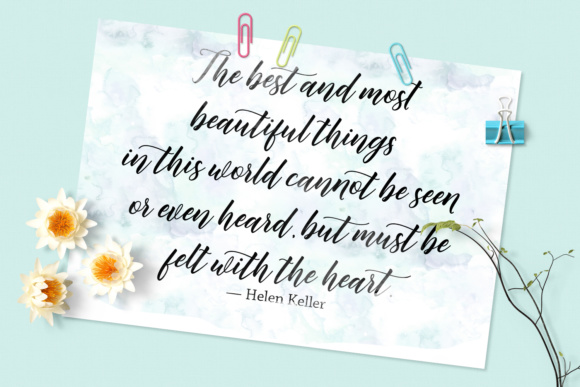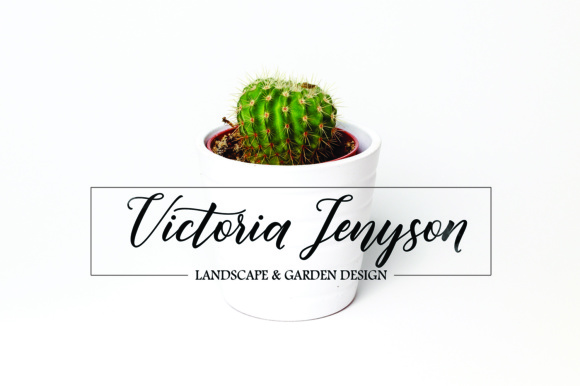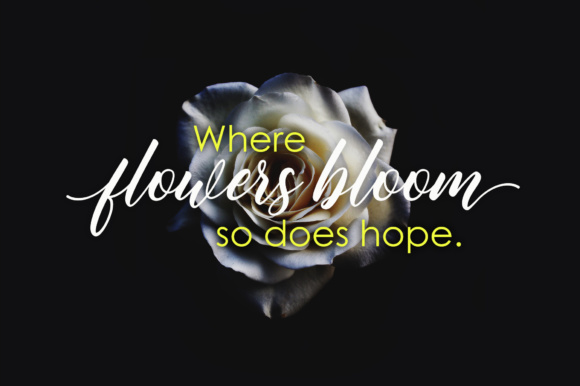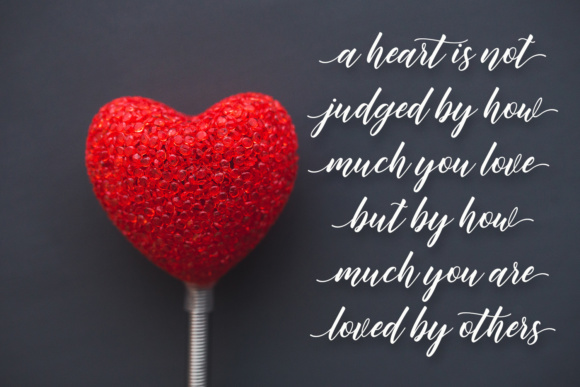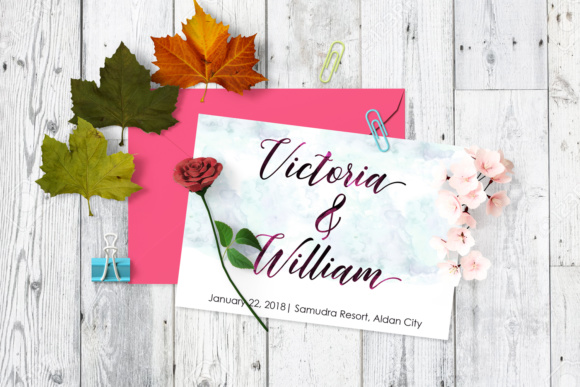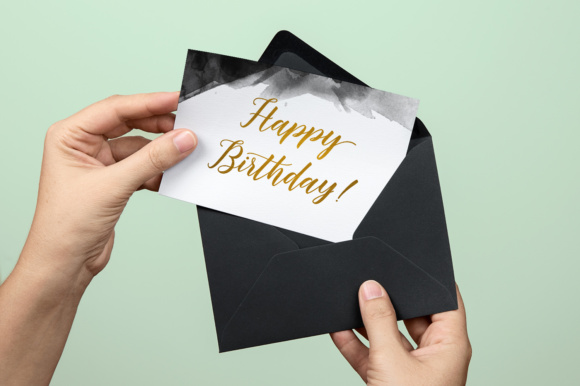
Butterflies Script Font
About Butterflies Script Font
The Butterflies Script is a handmade calligraphic-style font that features stunning decorative characters. It is fresh & modern, and has a dancing baseline.